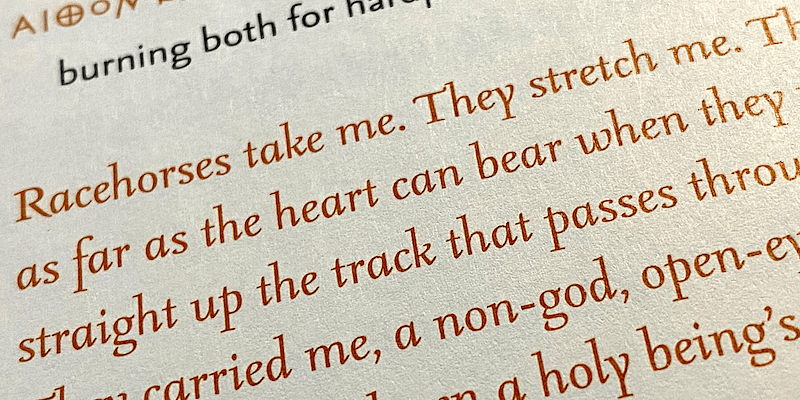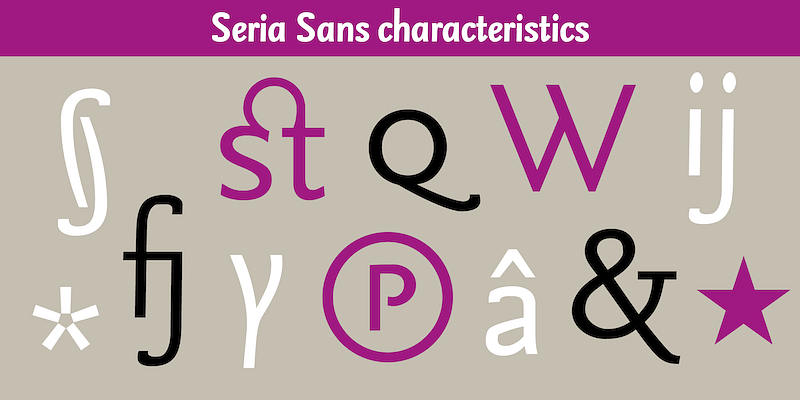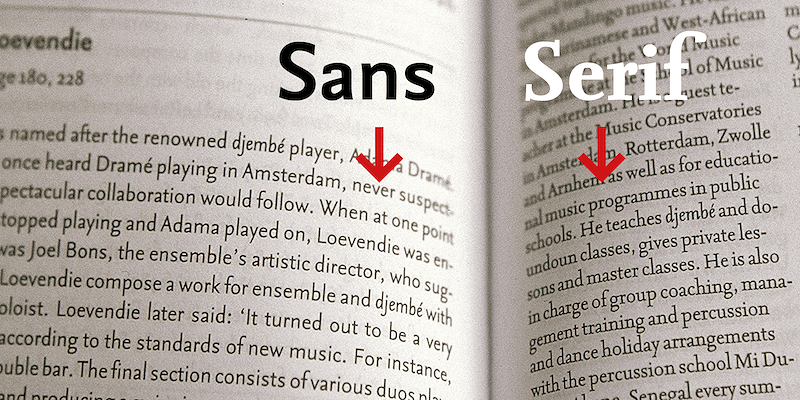
Seria: a subtle textface with striking details
Seria® was released in 2000. It can be seen as a ‘literary’ typeface, with long ascenders and descenders and a distinctive upright italic. Its relatively small x-height makes Seria a rewarding challenge for the experienced typographer.
Augmenting Seria with a sans serif version was an obvious next step. Using a black marker and some white paint, the serifed characters were transformed into a sans, resulting in Seria Sans, which retains the same long ascenders and descenders as Seria, quite unusual for a sans serif.
In 2003, the Seria family won two awards: a Certificate of Excellence from the ISTD and a Certificate of Excellence in Type Design from ATypI.
In 2021 Martin Majoor launched an independent type foundry under his own name. Majoor is known for his award-winning typefaces (Scala, Seria, Nexus) that were originally published by Fontshop. His Scala and Scala Sans are considered ‘classics’ and are among the first digital typefaces. In collaboration with Jos Buivenga he designed the large and successful Questa family. In his latest typeface ‘Comma Base’, he explores the basic shapes of a typeface, with both typical sans features and at the same time serif elements. It can be seen as a typeface featuring the best of both worlds. Comma Base is the first typeface to be released by his own foundry.